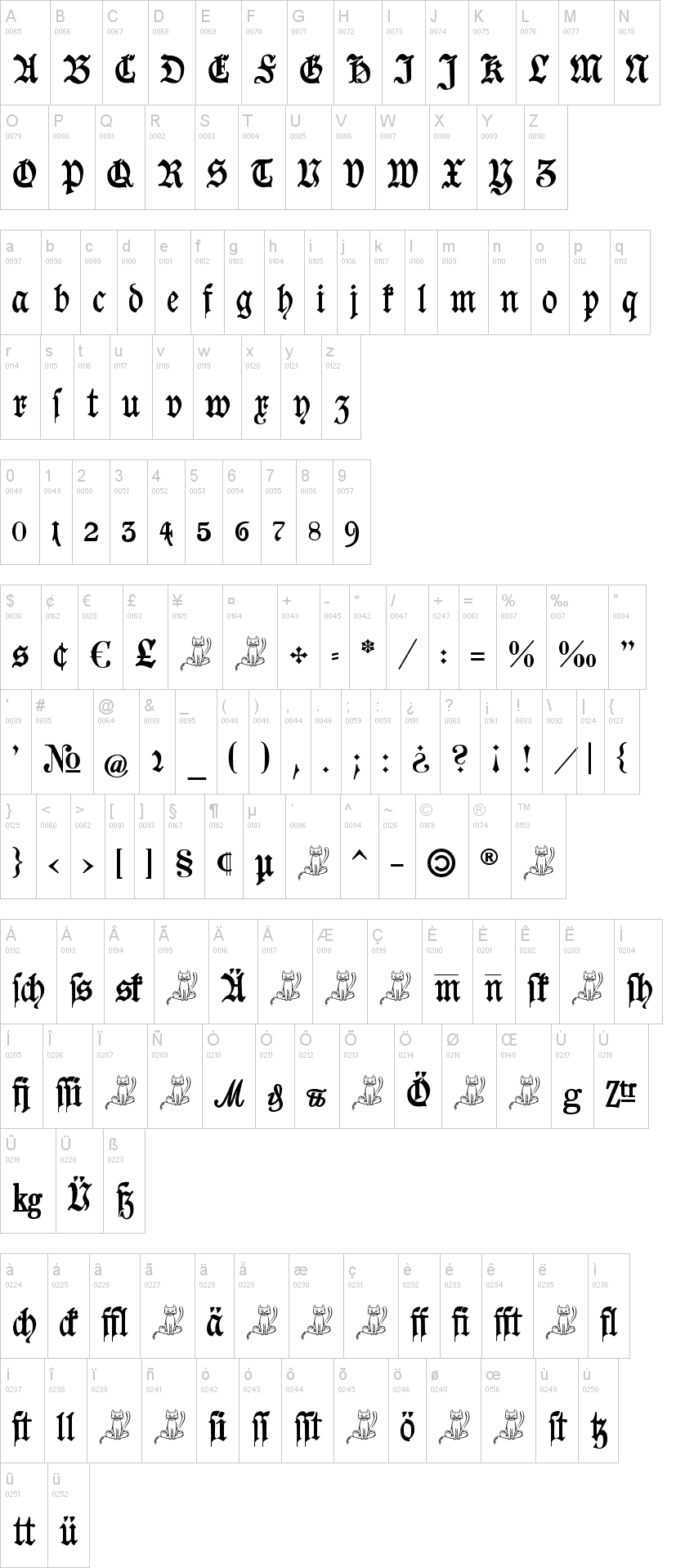
Шрифт Goeschen Fraktur
1880-tyle "Fraktur" used in "Sammlung Göschen" books, Some more ligatures added, a "how to" for the ligatures added to the package